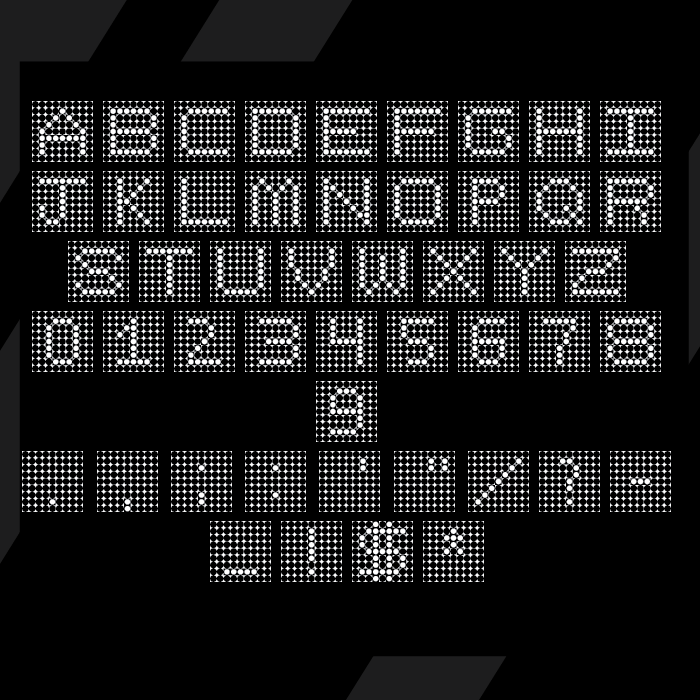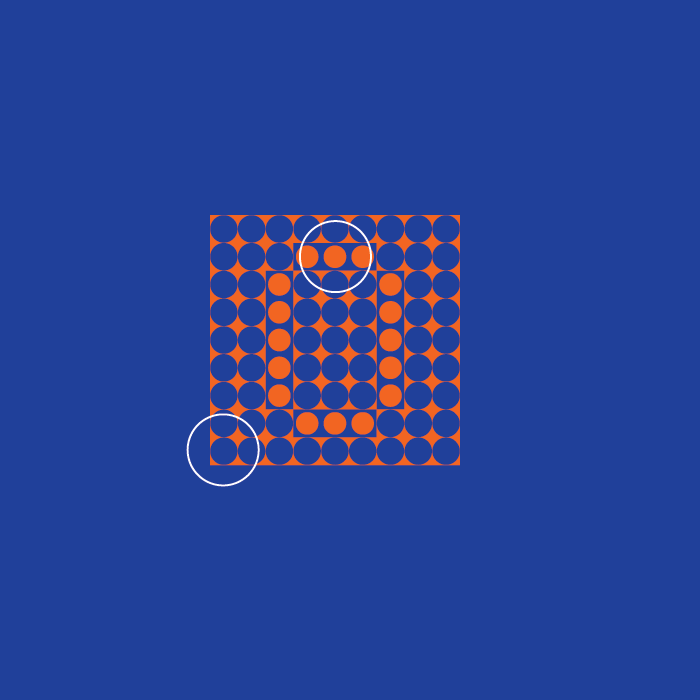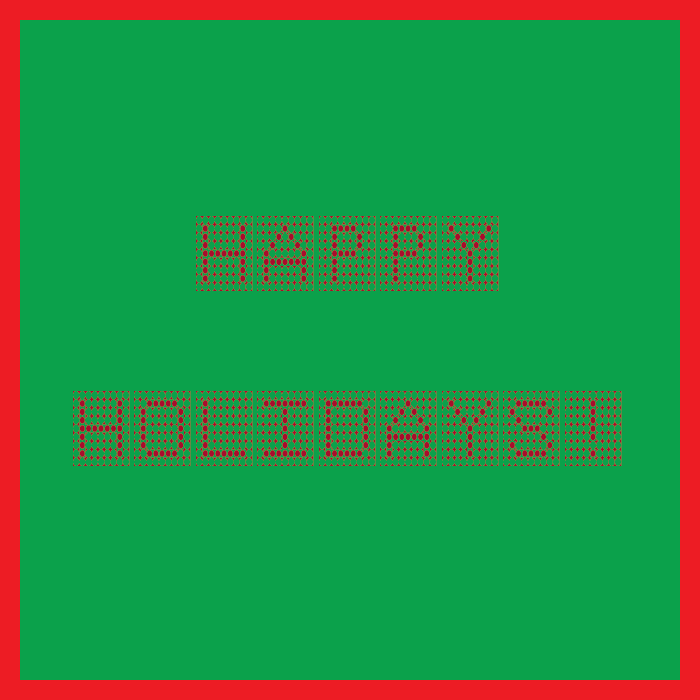
• Created for DMACC Typography class. This is supposed to be used for titles or headers. I wanted to do something non-traditional so I used the grid format for that.
Lights ((All Caps))by Alex Thompson